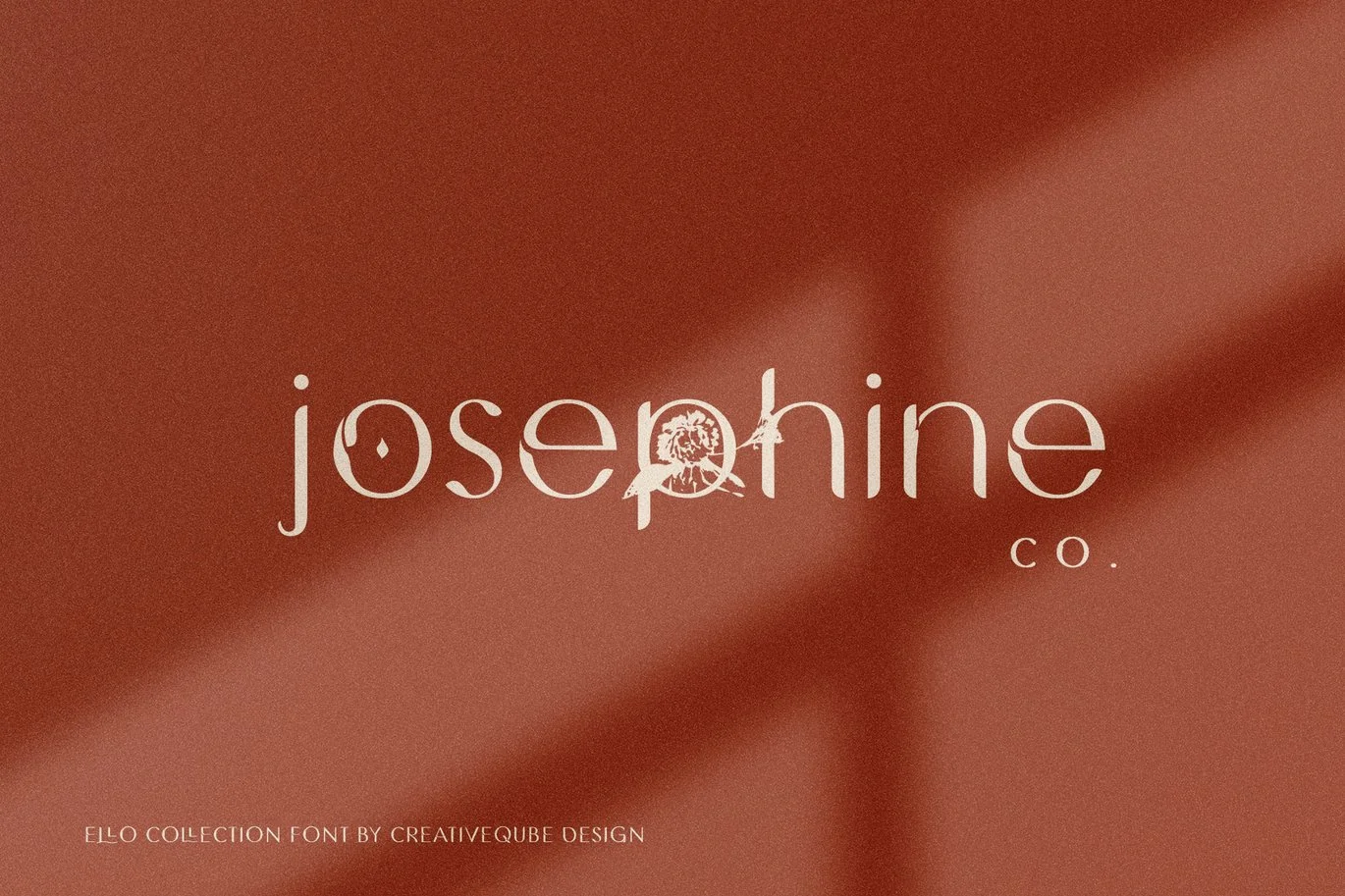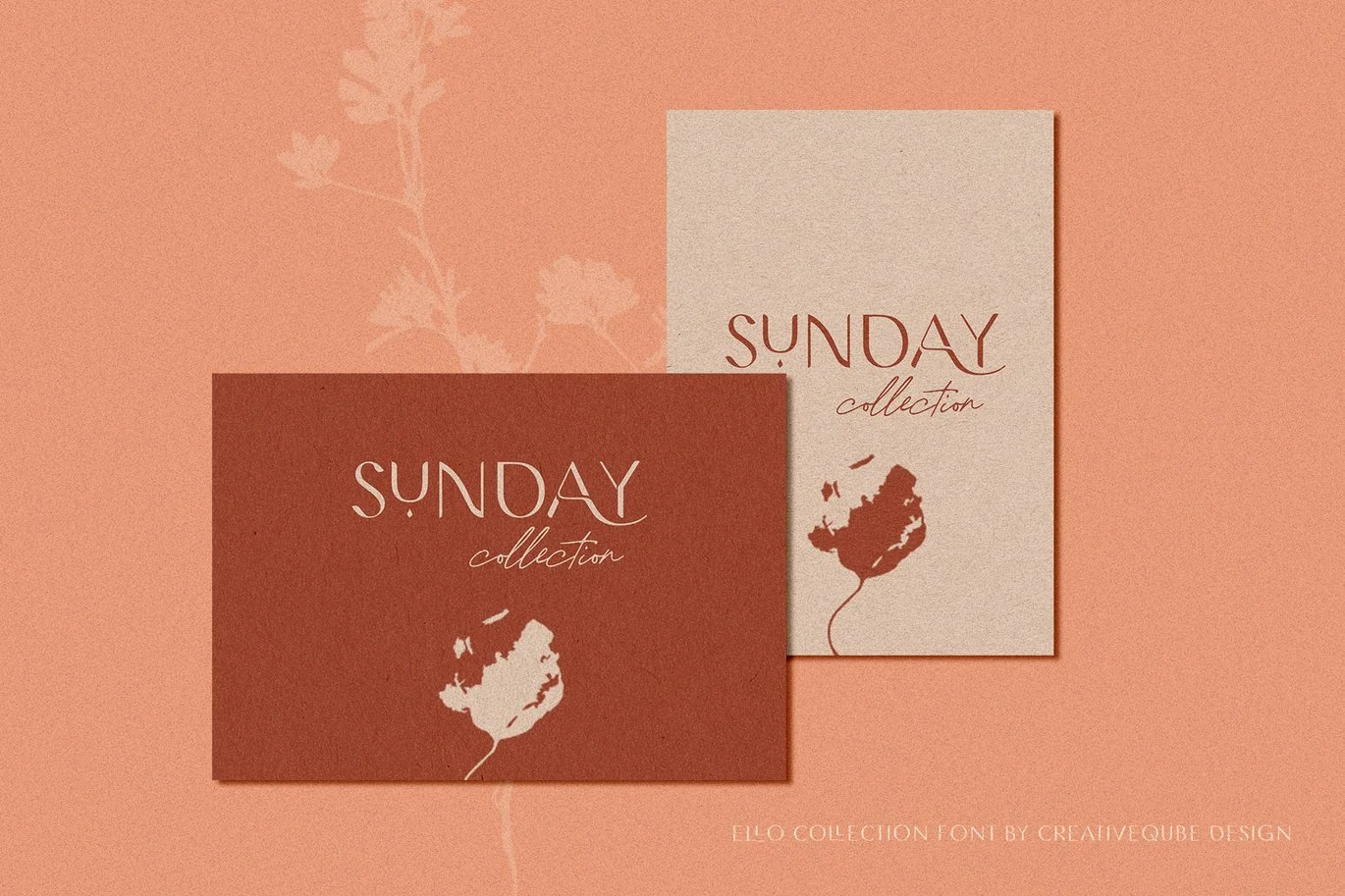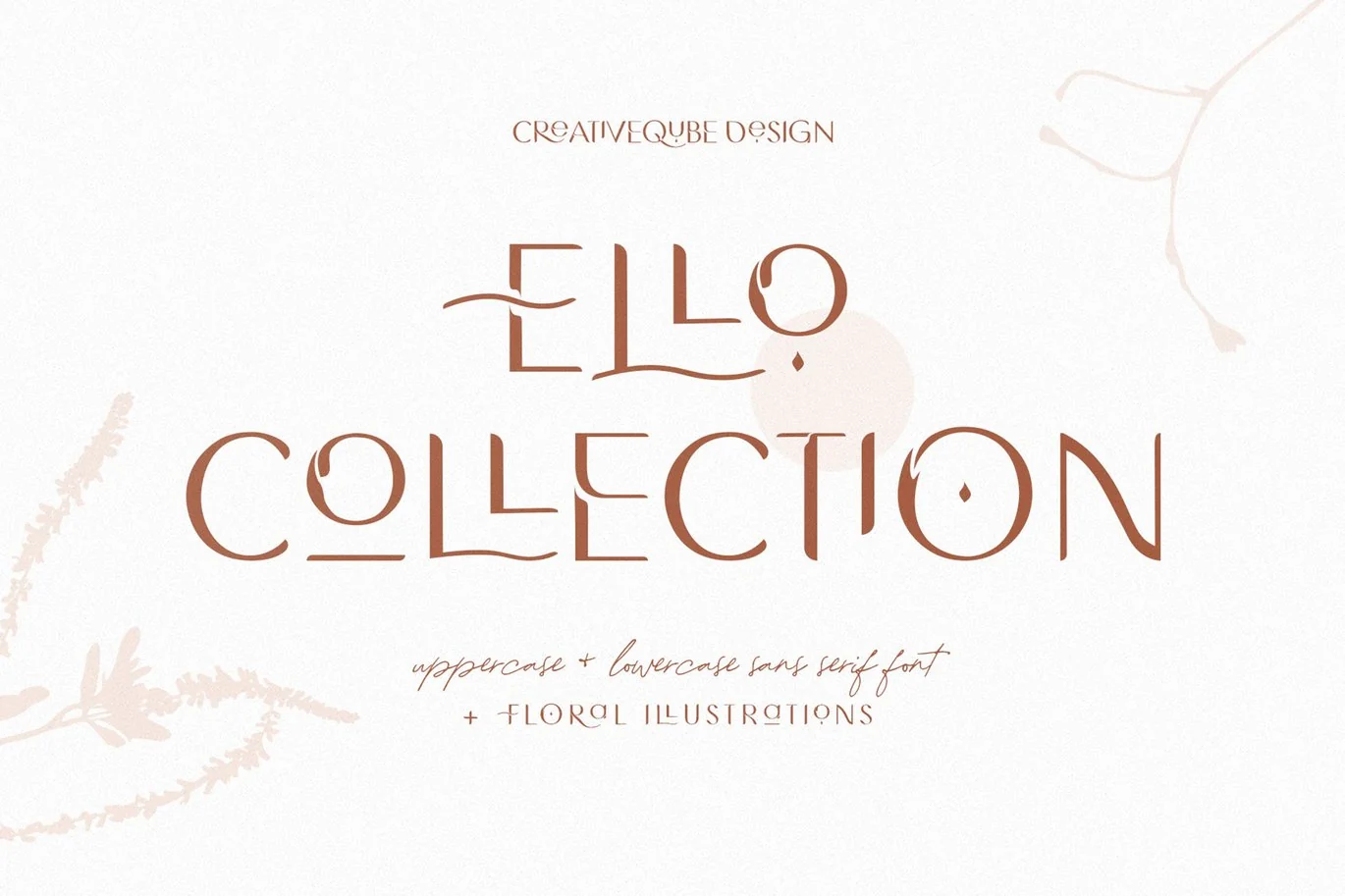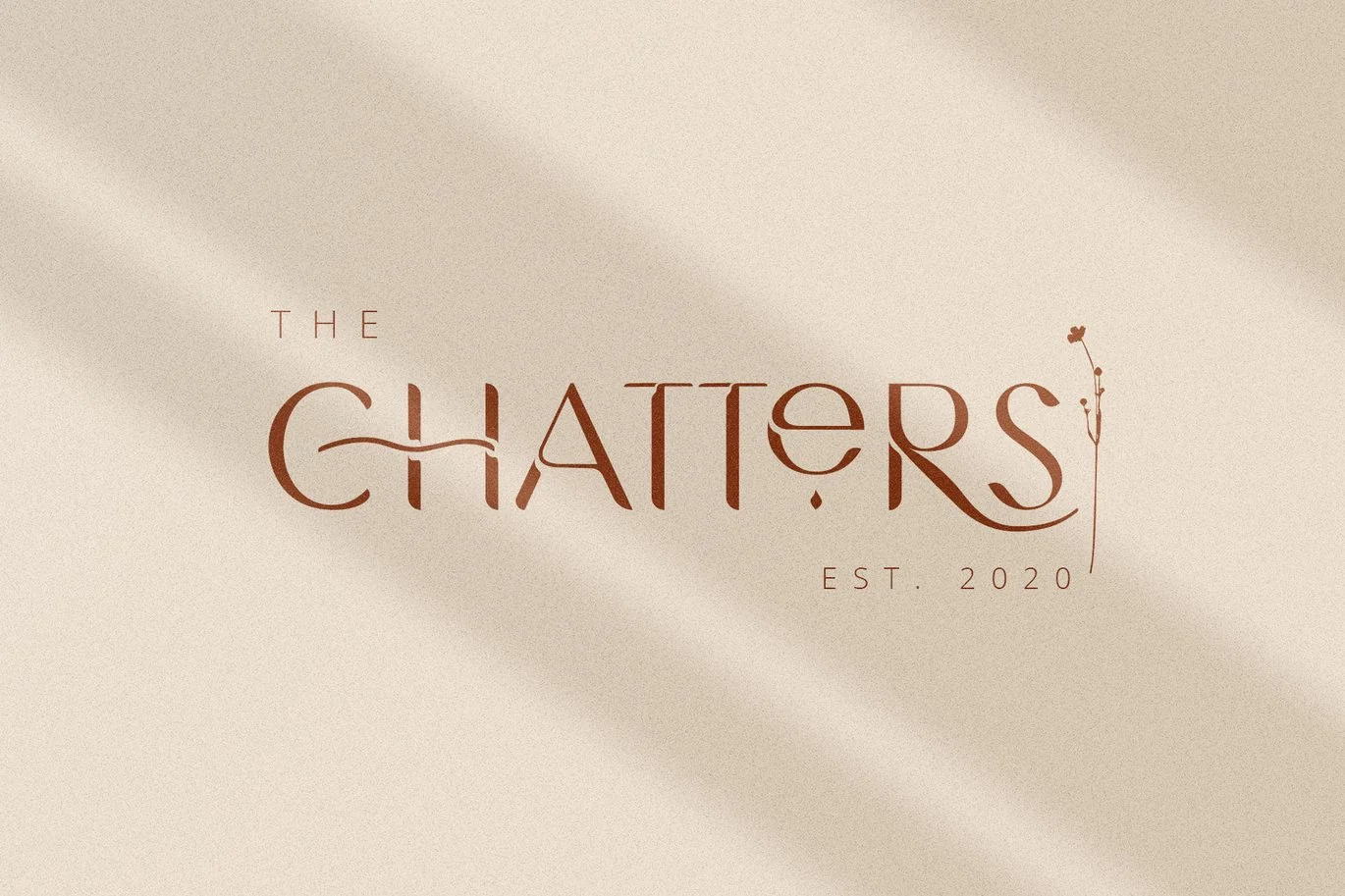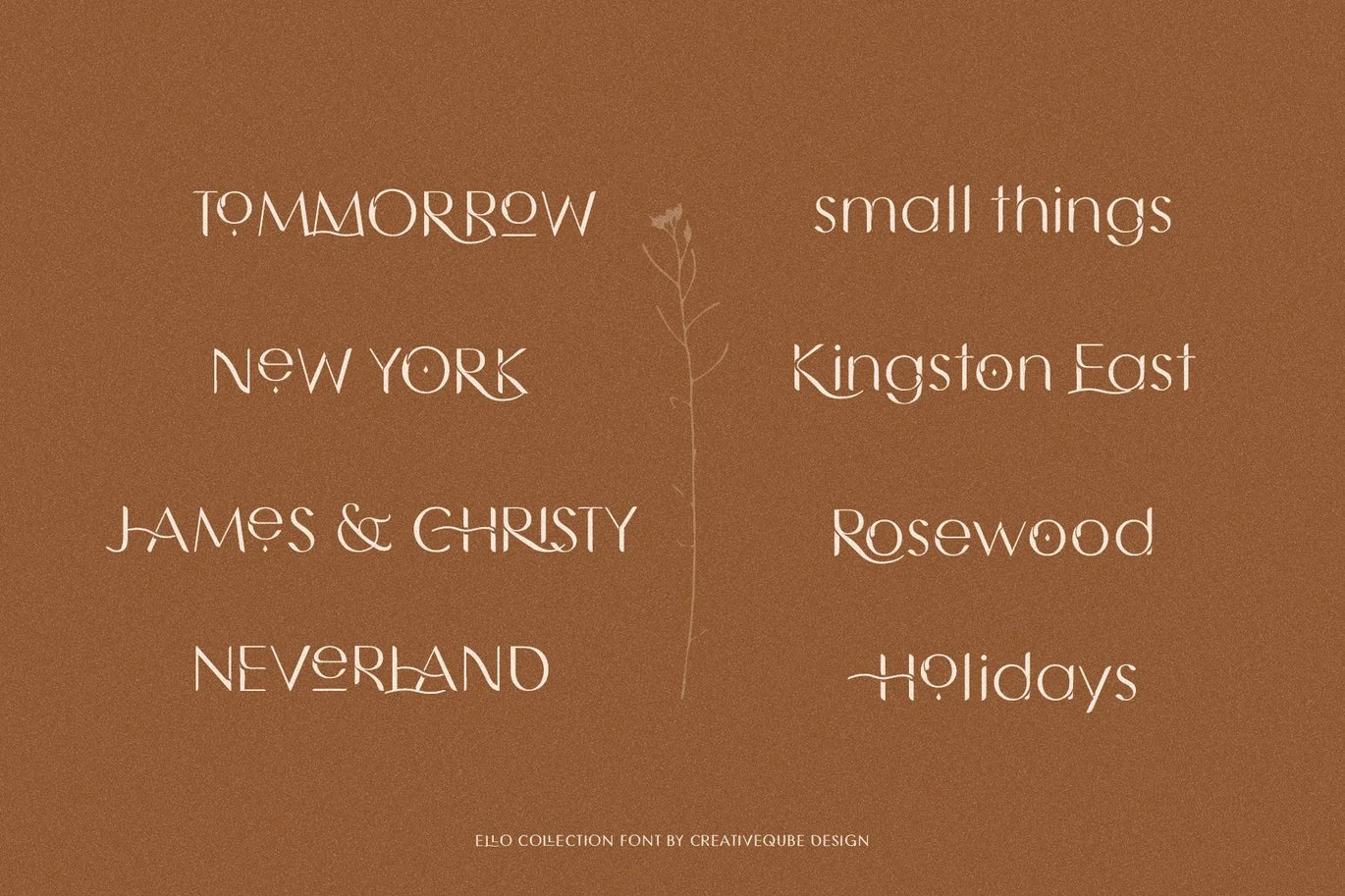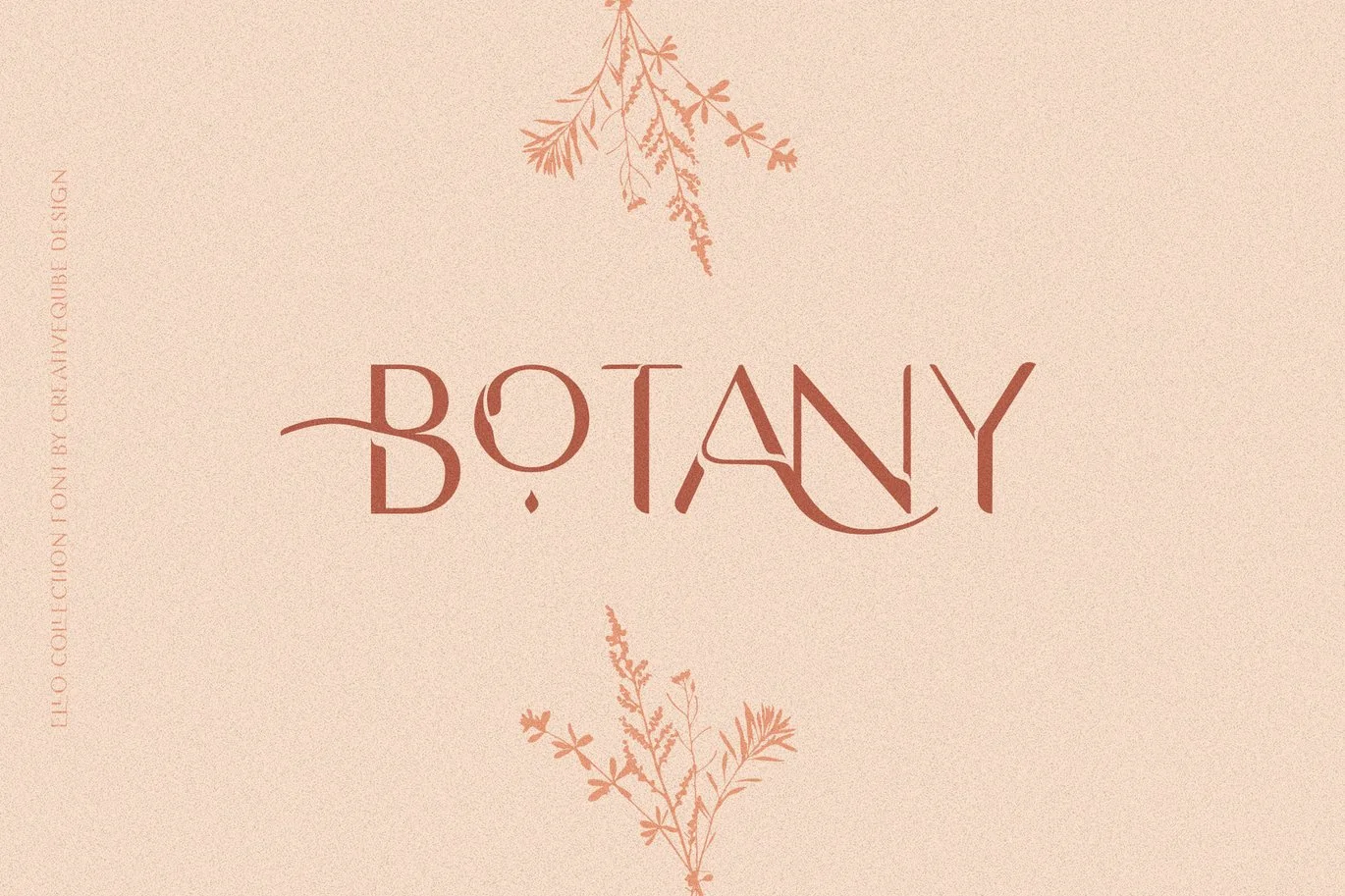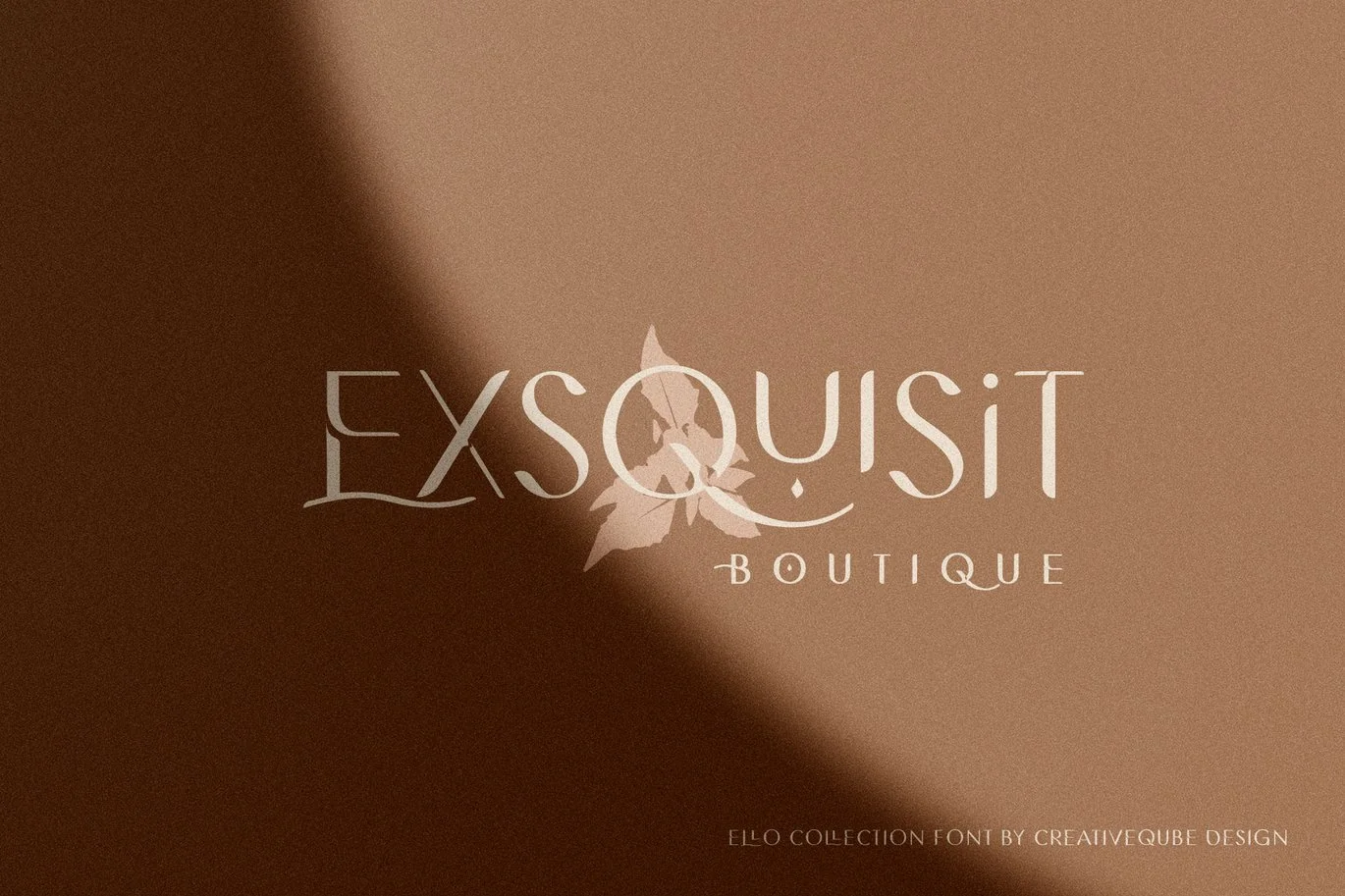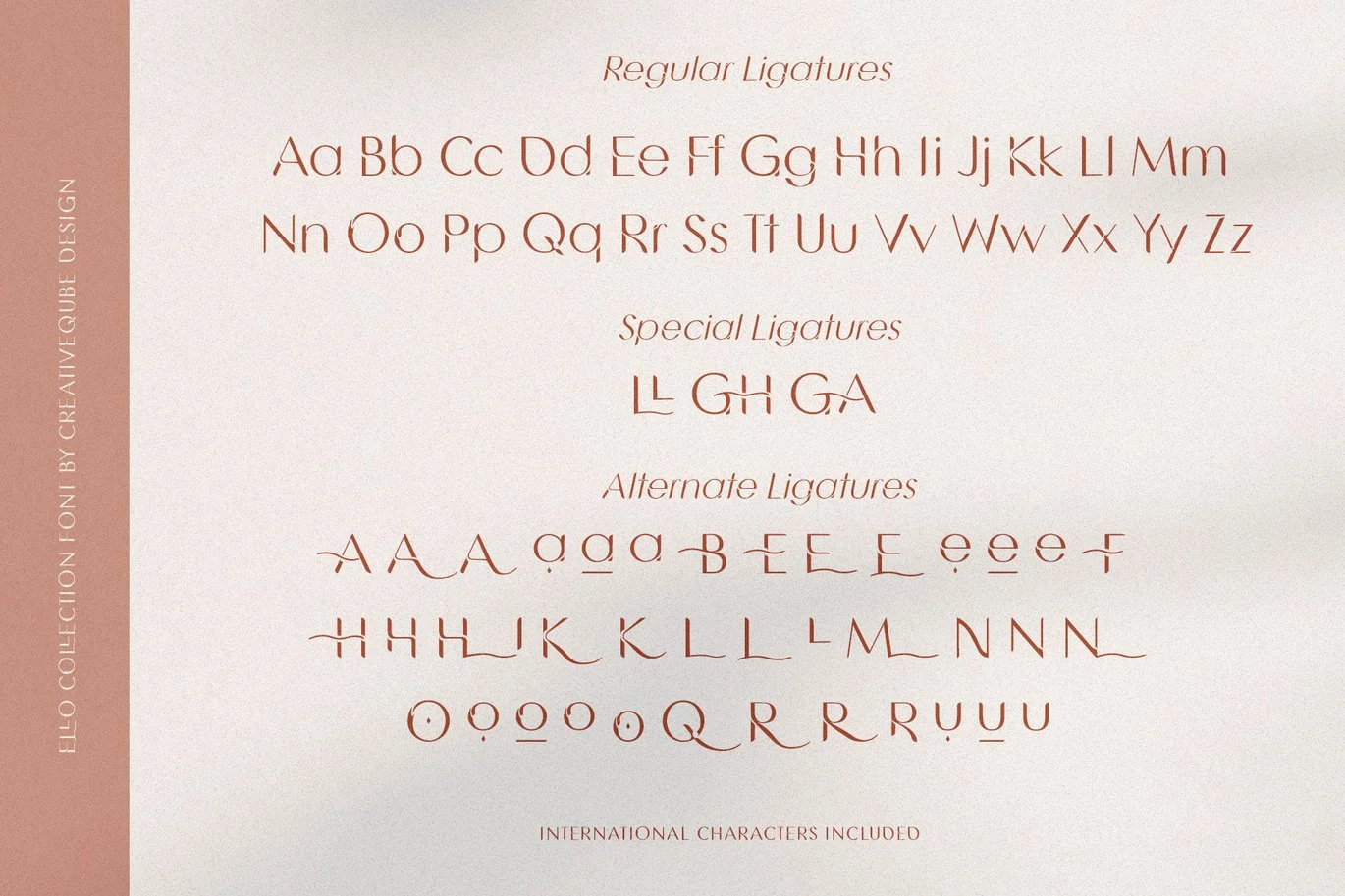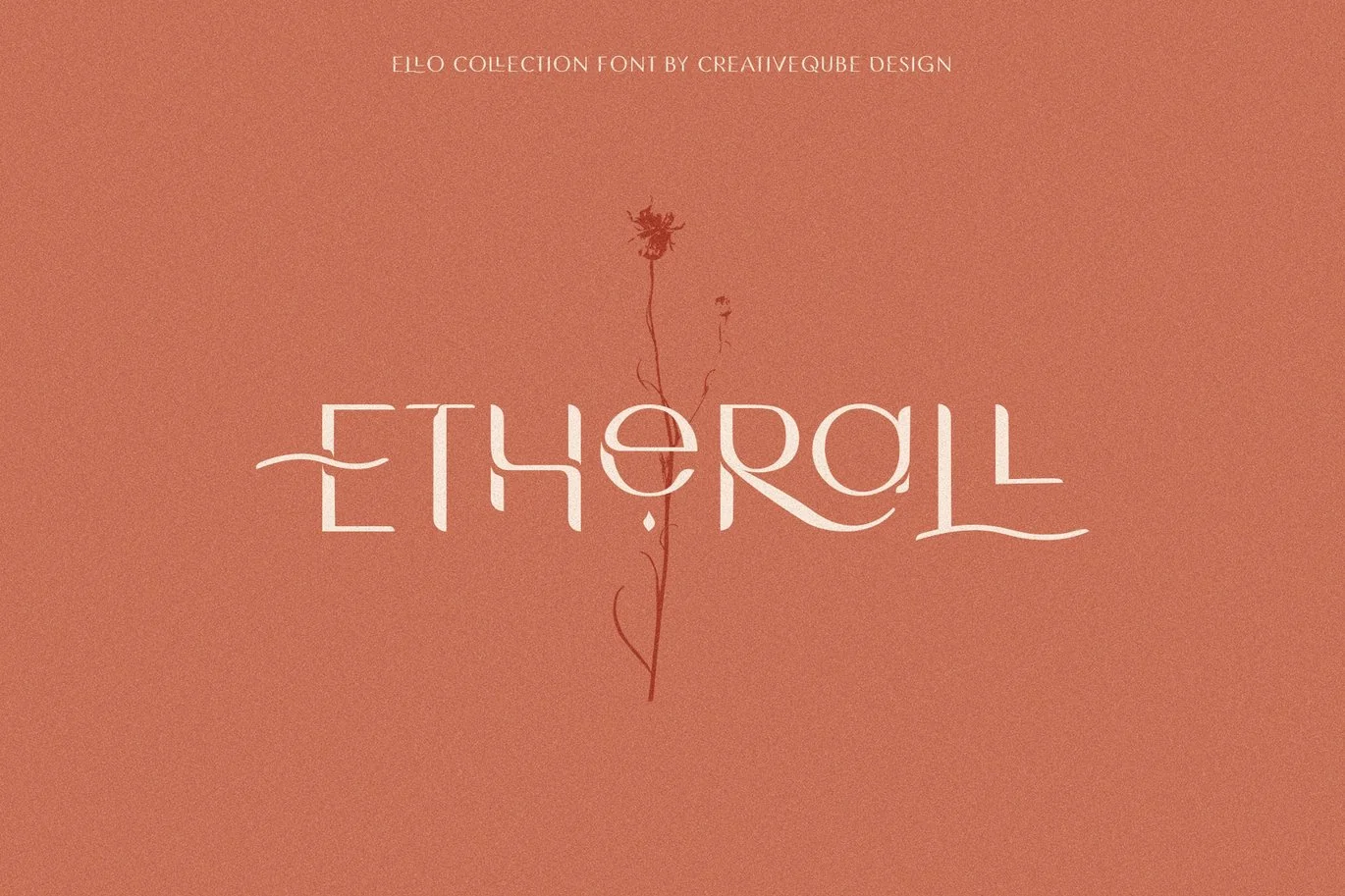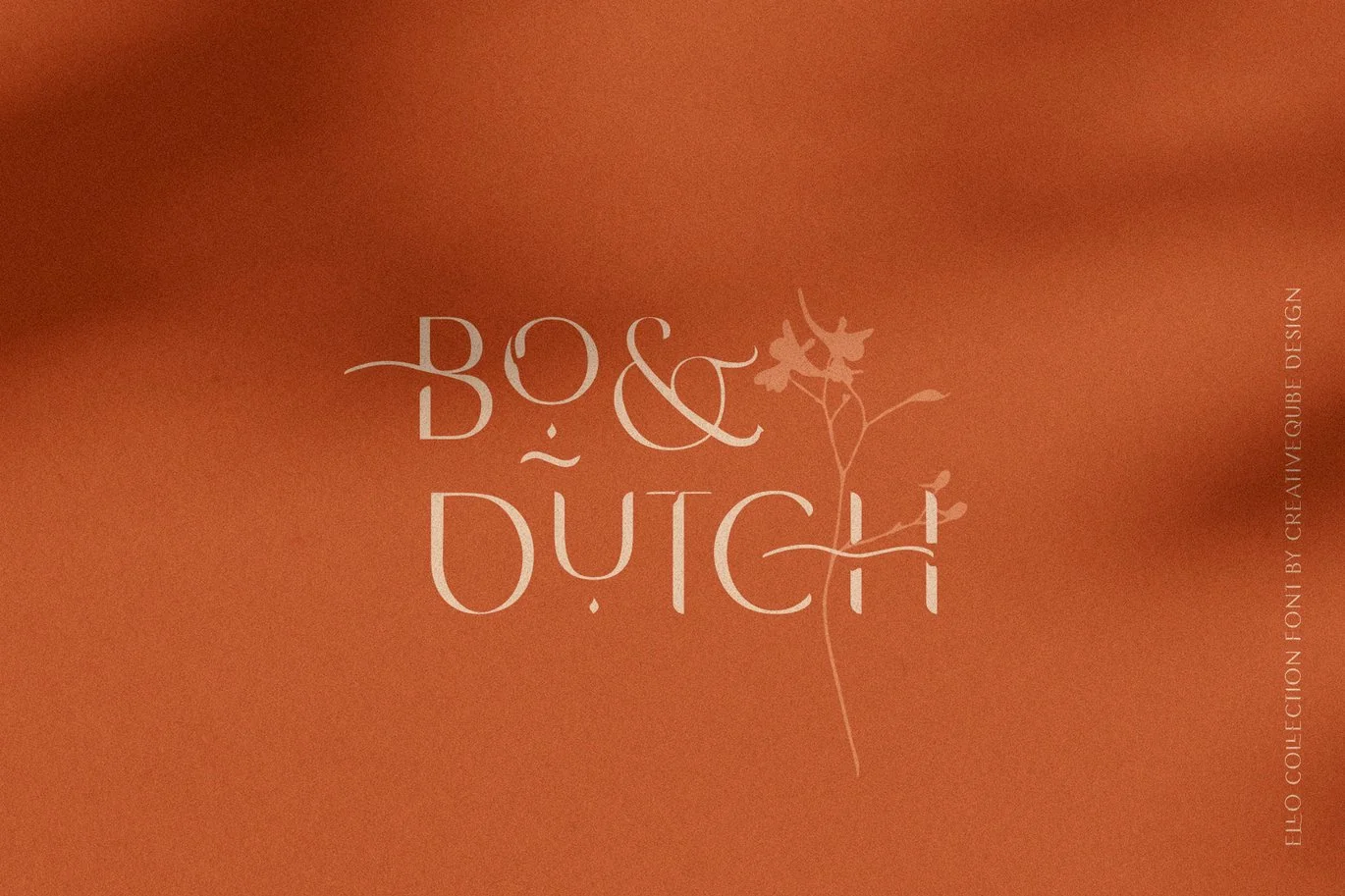
Ello Collection Decorative Font
Ello Collection is a modern sans serif font loaded with alternates and ligatures that makes for stunning logos, quotes, wedding invites, blog posts, Instagram, and more!
Ello Collection includes a full set of lowercase and uppercase glyphs plus extra glyphs for lots of letters, and uses very detailed kerning to create amazing letter combinations. Just select your letter, then use the Character panel or Glyphs panel to swap to whichever alternate you want to use. Voila.
Ello Collection comes in 3 different weights and also in Italics.
- Regular Sans
- Bold Sans
- Light Sans
- Italics Sans
- Numbers + Punctuation
- International language support